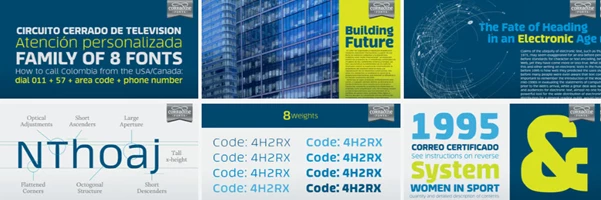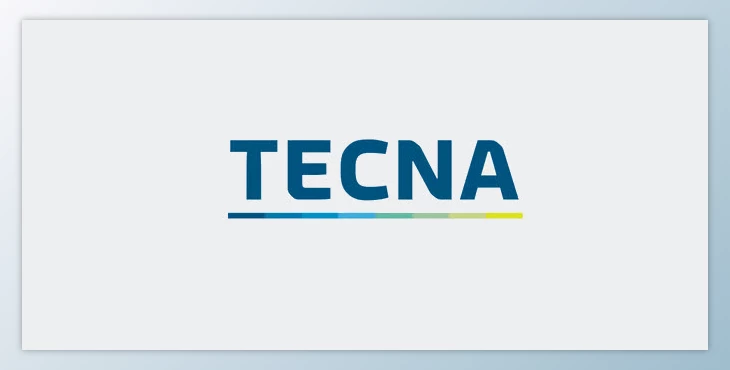
The Tecna Font Family offers a modern, sans-serif font with unique straight cuts, rounded angles, and beautifully curved thinnings at the ends of its letterforms. Overall, the typeface has a clean, contemporary aesthetic, making it suitable for many applications. Its rounded letters have a square quality, giving it an ordered, structured appearance. This structural look is further enhanced by the font's width, which makes a bold statement in text-heavy layouts.
The tall x-height is one of Tecna's most impressive features; it enables easy readability even in the smallest sizes. Hence, the font family is suitable for display and text use. What’s more, the Tecna Font Family comprises many characters to support Western and Central European languages. Tecna harmoniously combines aesthetics and functionality for print and web projects.